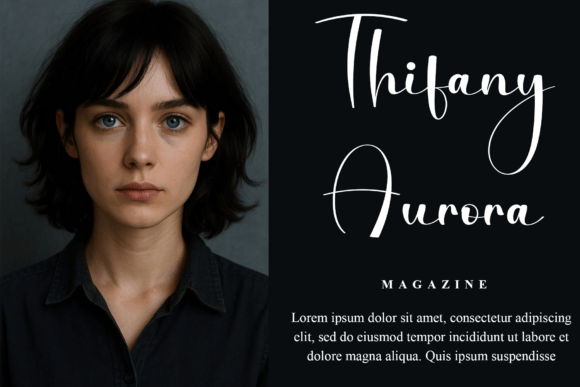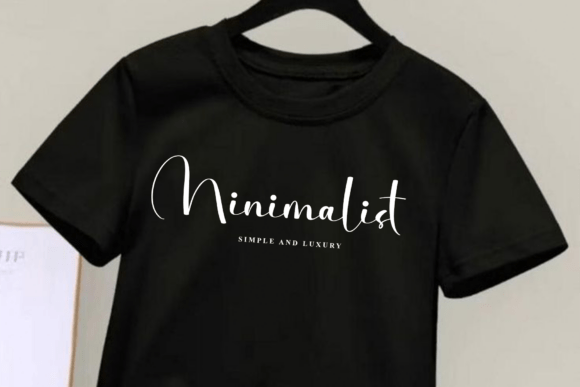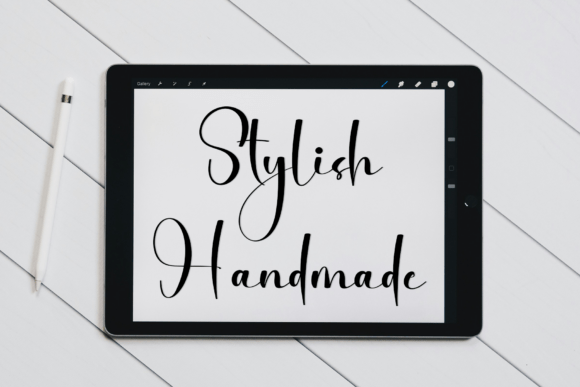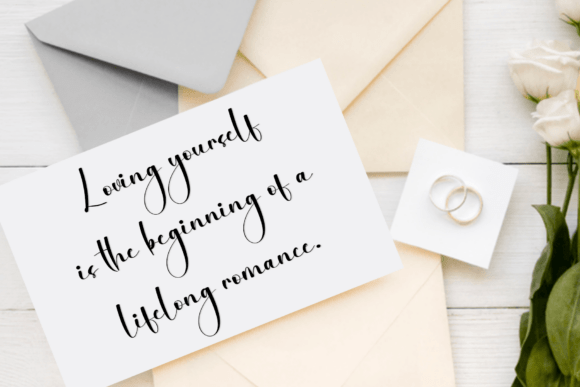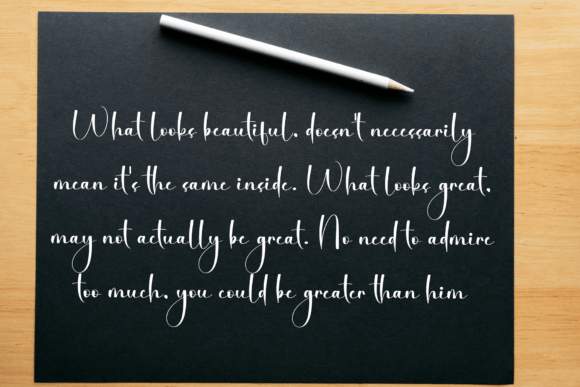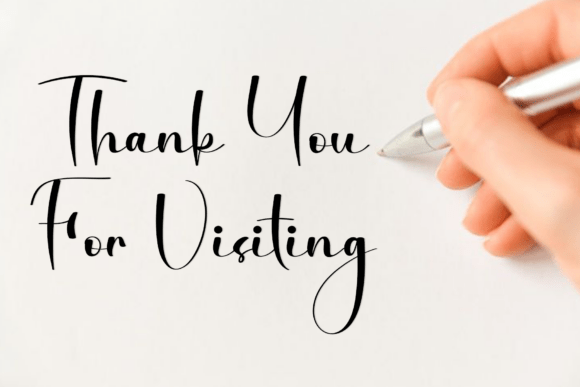
Introducing Bestie Signature Font: Elevate Your Designs with Elegance and Charm
In the world of typography, a signature font can make all the difference in setting your designs apart. Imagine a font that exudes elegance, charm, and sophistication, perfect for personal branding, stationery, and high-end product designs. Welcome to Bestie Signature, a graceful and expressive signature-style font that brings a touch of luxury to your creations.
A Modern Handwritten Typeface with a Luxurious Feel
Bestie Signature is a modern handwritten typeface that seamlessly blends smooth curves with stylish letterforms. This beautiful font is designed to create a luxurious feel that’s perfect for designers and crafters looking to add a touch of sophistication to their work. Each stroke feels intentional and fluid, making your text appear effortlessly natural yet beautifully refined.
Bestie Signature is a versatile font that’s suitable for a wide range of design applications. Whether you’re designing for a boutique, crafting custom prints, or building a brand identity, this font adds that personal, polished touch your work deserves. Here are some ideas to get you started:
- Logos: Create a lasting impression with a custom logo that exudes elegance and sophistication.
- Wedding Invitations: Make your wedding stationery truly special with a beautiful, handwritten font.
- Packaging: Elevate your product packaging with a luxurious font that reflects your brand’s personality.
- Quotes: Add a touch of inspiration to your social media templates or print materials.
- Social Media Templates: Create engaging and stylish social media content that stands out from the crowd.
A Delicate Balance between Simplicity and Flair
One of the standout features of Bestie Signature is its delicate balance between simplicity and flair. This font is perfect for designers who want to create a minimalist aesthetic with a touch of elegance. The smooth curves and stylish letterforms ensure that your text is easy to read, while the luxurious feel adds a touch of sophistication.
Why Choose Bestie Signature?
With so many fonts to choose from, why should you choose Bestie Signature? Here are just a few reasons:
- Elegance: Bestie Signature exudes elegance and sophistication, perfect for high-end designs.
- Versatility: This font is suitable for a wide range of design applications, from logos to social media templates.
- Easy to Read: The smooth curves and stylish letterforms ensure that your text is easy to read.
- Unique: Bestie Signature is a unique font that will set your designs apart from the crowd.
Let Your Designs Speak with Confidence and Beauty
With Bestie Signature, you can create designs that speak with confidence and beauty. This font is perfect for designers and crafters who want to add a touch of sophistication to their work. Whether you’re designing for a boutique, crafting custom prints, or building a brand identity, Bestie Signature is the perfect choice.